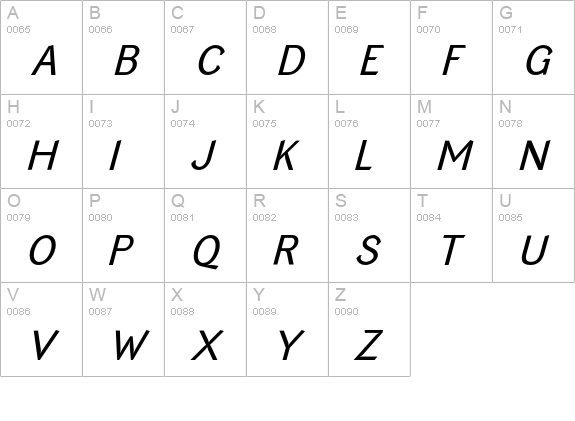
EquipoizeSans-RegularItalic Font Details
EquipoizeSans-RegularItalic is a sleek and modern font that exudes elegance and sophistication. Its italic style adds a touch of flair and dynamism to any design project. The clean lines and graceful curves of EquipoizeSans-RegularItalic make it perfect for conveying a sense of style and professionalism. This versatile font is perfect for a wide range of design applications, from branding and advertising to editorial and web design. Its readability and unique style make it stand out from the crowd, while still maintaining a sense of accessibility and approachability. Best of all, EquipoizeSans-RegularItalic is available for free download at FontsMarket.com. This means that you can easily access and use this stunning font in your projects without any cost. Don't miss out on the opportunity to enhance your designs with the beauty and sophistication of EquipoizeSans-RegularItalic. Download it today and elevate your creative projects to new heights!